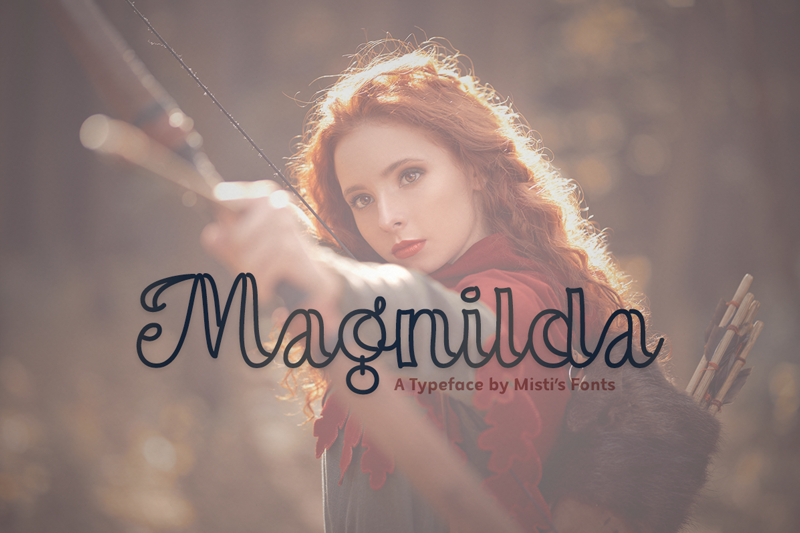
Font name: | Magnilda |
Magnilda is a delicate and elegant script font, with a unique feel and a stunning impact. It will add a luxury spark to any design project that you wish to create! Terms Of Use and Commercial Use: https://mistifonts.com/magnilda/ |